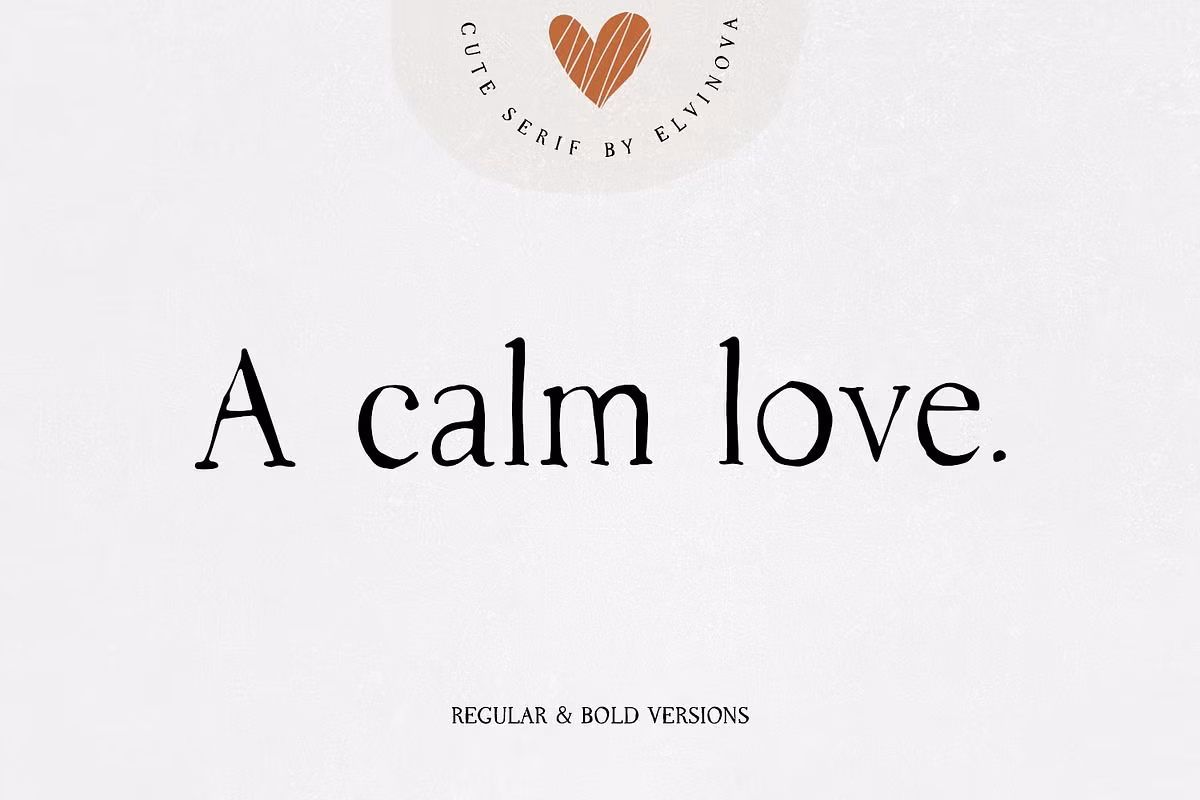
A Calm Love Cute Font Free Download is a sweet and playful handwritten typeface designed to add warmth and charm to your designs. With its soft curves and endearing character, this font is perfect for wedding invitations, greeting cards, children's books, branding, and any project that requires a tender, personal touch.
This cute font brings a relaxed, friendly vibe while ensuring great readability for both digital and print applications. A Calm Love includes uppercase and lowercase letters, punctuation, multilingual support, and works seamlessly on both Mac and Windows systems.